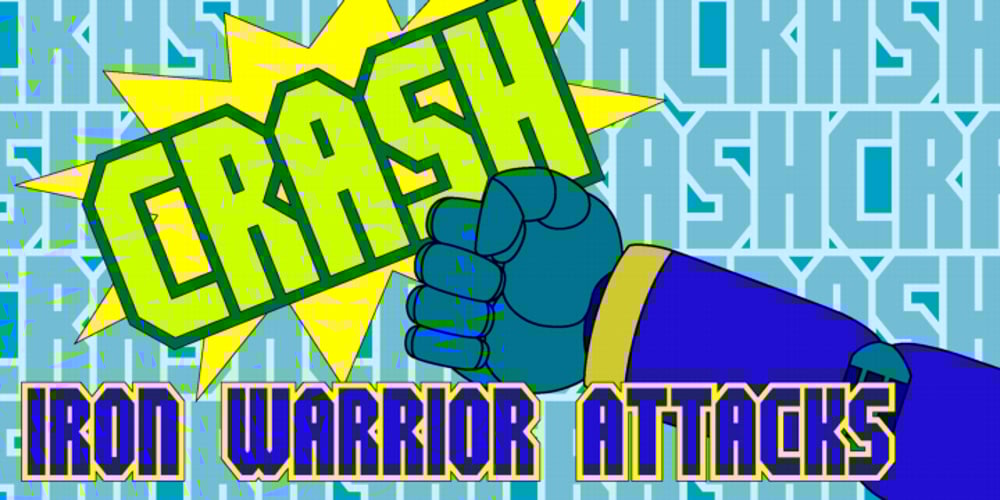
Iron Warrior Font Family was designed by Ronnie Cruz and published by Cyberian Khatru. Iron Warrior contains 1 styles and family package options. Since the advent of computer lettering in comicbooks, it has become commonplace to use letterforms with a mechanical look for mechanical sound effects. In my time as a hand-letterer of comicbooks I used hand-drawn letterforms for all sound effects, including mechanical ones. The advantages of computer lettering now allow me to use more mechanical looking effects where appropriate. Iron Warrior is the result. For more information: homepage.mac.com/